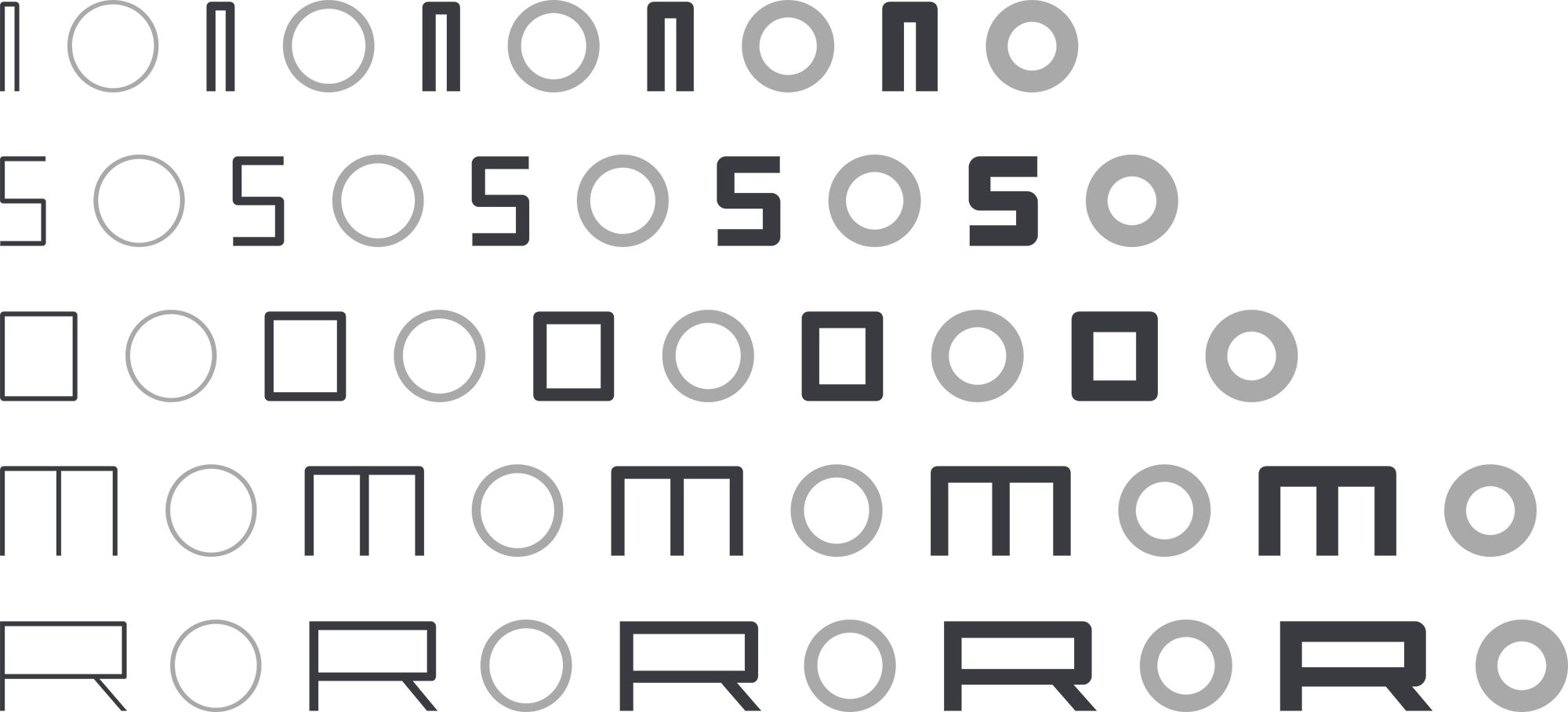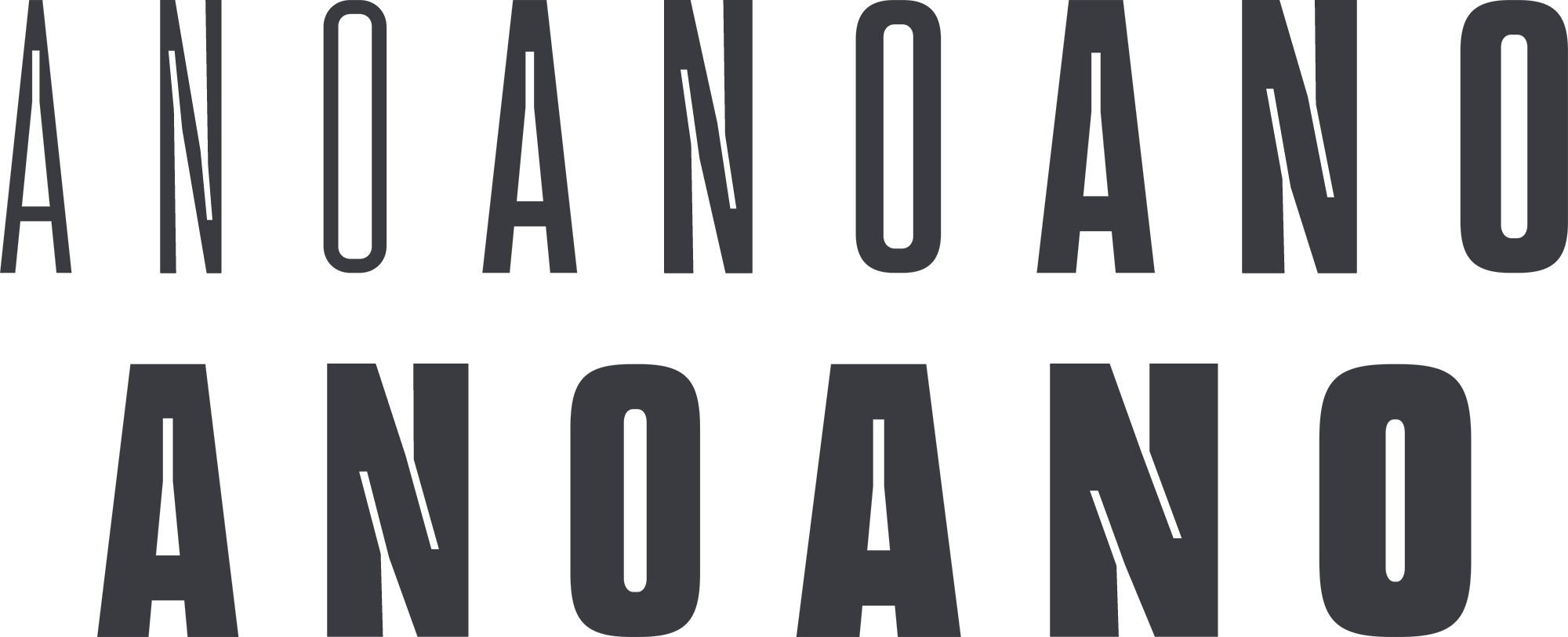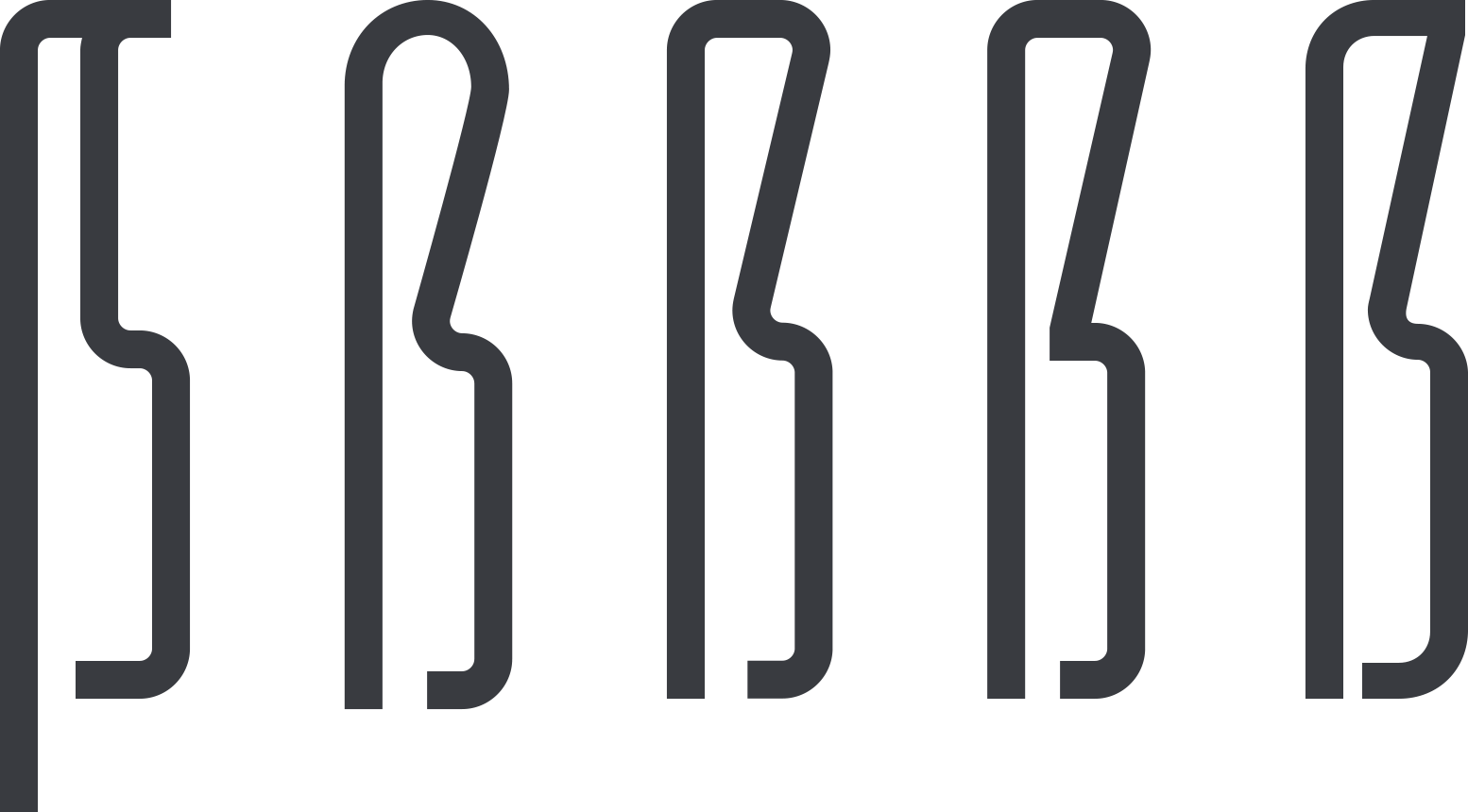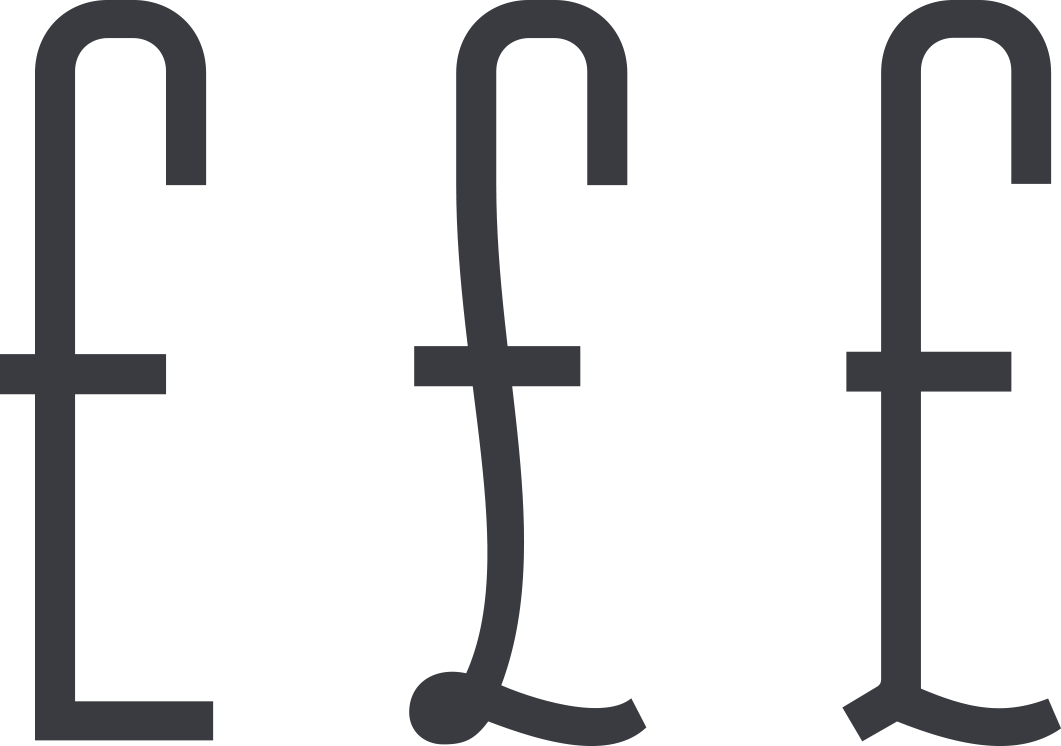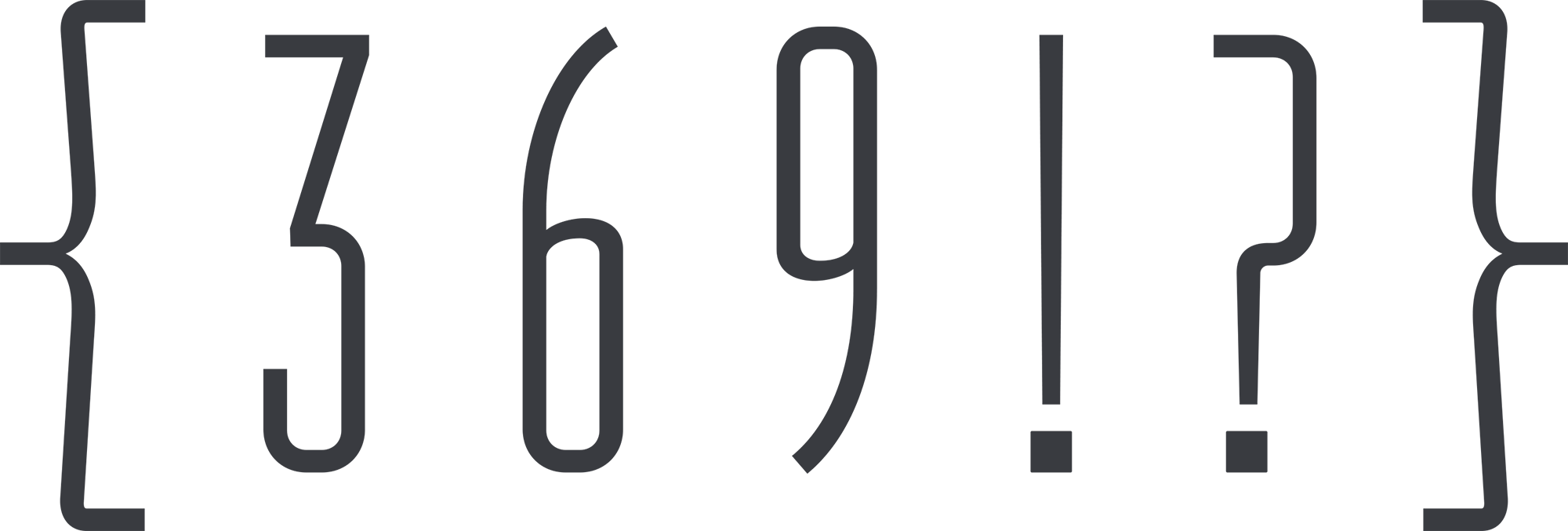
The process of connecting Rocinante Titling to last year’s Havelock Titling was a weird one, for sure. I’m not sure why I ever intuited that the idea should expand, but something in the modularity in Havelock’s concept made me sure that there was something to look for. More Havelock, maybe? But not exactly Havelock.
This sketch was the first time I’d considered that Havelock could be more than a single family of typefaces.
I began knowing that I wanted to expand the family into several connected-but-not-identical families shortly after Havelock’s release—but I wasn’t sure how to do that, because it wasn’t clear about which part of Havelock’s DNA would fit in other contexts. I was fairly sure it was the family’s simple strokes and machine references, but I wasn’t positive—so I devised a scenario in which to explore.
I started by looking for ways to make contrast in form. Squares against rounds felt right at the beginning. From that, I drew quick, essential forms set along Havelock’s five weights, then added a width matrix to see where it felt most rhythmic. The exercise was twenty-five faces total, Light Extra-Condensed to Black Extra-Wide.
Squares and wide rectangles in the same weights were interesting, but not right—I’ve never seen a squared typeface that seemed graceful. That complete lack of grace proved that Havelock’s full-spectrum shape vocabulary was the key to describing a graceful monoline. Grace was an essential point of emphasis between the two faces.
Also, while looking at the squares, I noted that I was completely repelled by the retro-deco sci-fi-ness that squares emphasized. I wanted something more modern, more humane. An Expanse, not a 2001. More about people using technology to find humanity, not about people fighting technology to retain humanity.
A Havelock partner needed more than weight to feel connected—it needed a visual dance. Looking at Havelock’s geometry, that dance is easy to see by tracking the motion of characters, from terminus to terminus—it’s pretty clear that the forms’ motion is derived from signpainting and then rendered mechanically.
So, in a bid for both motion and grace, I dumped the family’s medium-to-wide widths entirely to focus on the narrow forms and see what that might yield. What ho: pay dirt! A tall, compressed, tense form carried Havelock’s sense of authoritative presence, yet had a very different movement.
Around the same time, I was also interested in manipulating a letter’s interior shapes, especially in challenging characters—looking at the amount of stroke I could could remove without sacrificing rhythm. I began carving into the interiors to let more light in and create more motion. And also, around that point, I named the family Rocinante.
A mechanical lightwell, made larger than function dictated, gave the motion and a tensely-wound interior that became even more interesting in bold forms. The size and scale of the lightwell declared it a design detail, and not just a technical correction. I liked the idea of taking that optical correction from necessity to flourish because that is a defining characteristic in how culture gets made. Find a limitation, work within it, and make subtle alterations, which get passed around like-minded groups.
Rocinante’s lightwells and compressed strokes combined with its generous curves felt like a beautiful way to expand Havelock’s initial idea: machined and human-drawn forms existing in harmony, not absolutist binary. We know nowadays that machines only work well if they reflect the humane well.
In Rocinante, the combination of machined and written became an ongoing theme, especially in characters needing a pared-down construction. Here’s the design steps that yielded the German eszett.
The first iteration feels too calligraphic and handmade to feel connected to the modernness of the rest of the face. Technically it works, but it feels so… fusty. Old-fashioned.
The second iteration is closer; it feels more modern—but the top is still too round, too much like a handwritten cursive.
The next two iterations are much closer, but the connections and transitions still needed work.
And finally, a form I liked. It has a lyricism to it—a nice rounded entry at the top, a sudden zig-zag down, gentle curves into the final terminus. It feels like the way a hand would make the form, but uses a mechanical precision to get there.
And here are the steps for the pound sterling.
First step is too obviously mechanical, not human enough. It looks a bit unsympathetically hacked-from-the-grid. (It was, I was super tired when I started this.)
Second step is closer, but veers too far into the calligraphic. The third step is where I realized that this form’s key is the abstraction of the lower loop away from the pen-drawn. In the final form, you can see how that abstraction works: the handwritten motion is clearly present in that tiny curve, but the loop’s bulge merges with the machined stroke.
But for now, please enjoy Rocinante on its own, and in combination with Havelock. Their voices will grow as the collection grows.